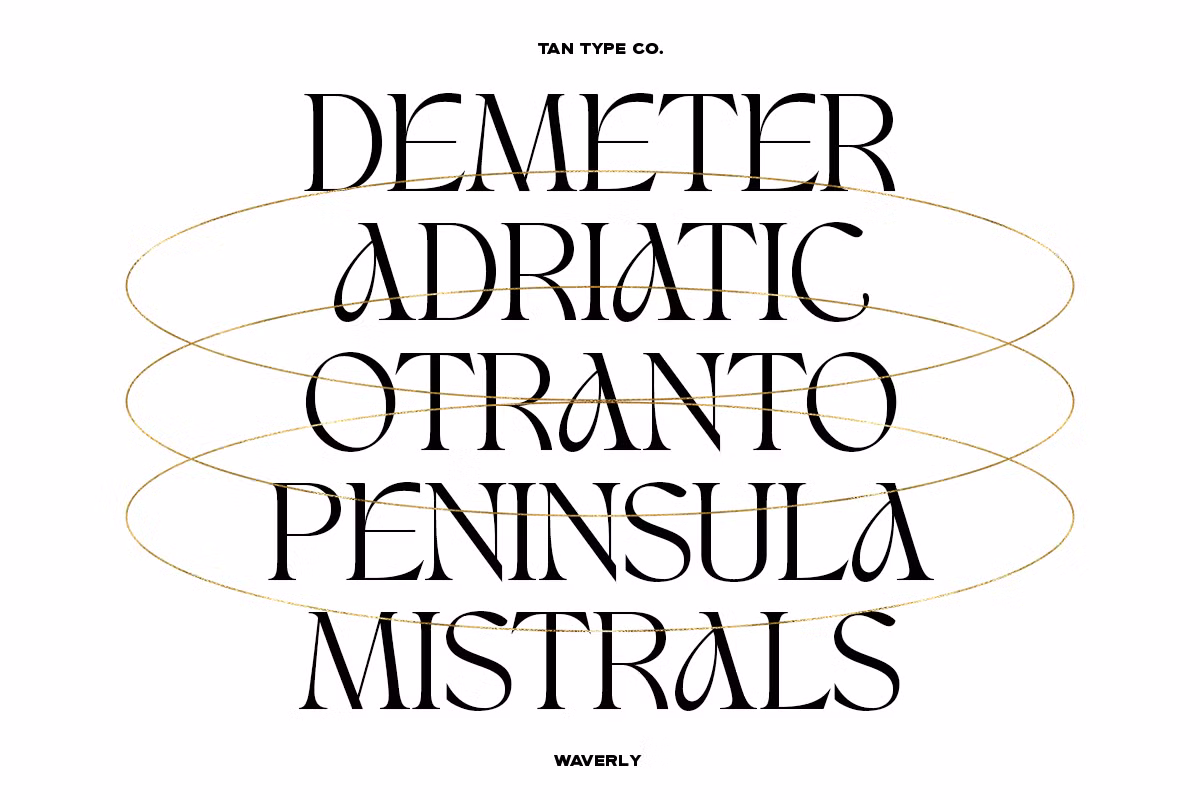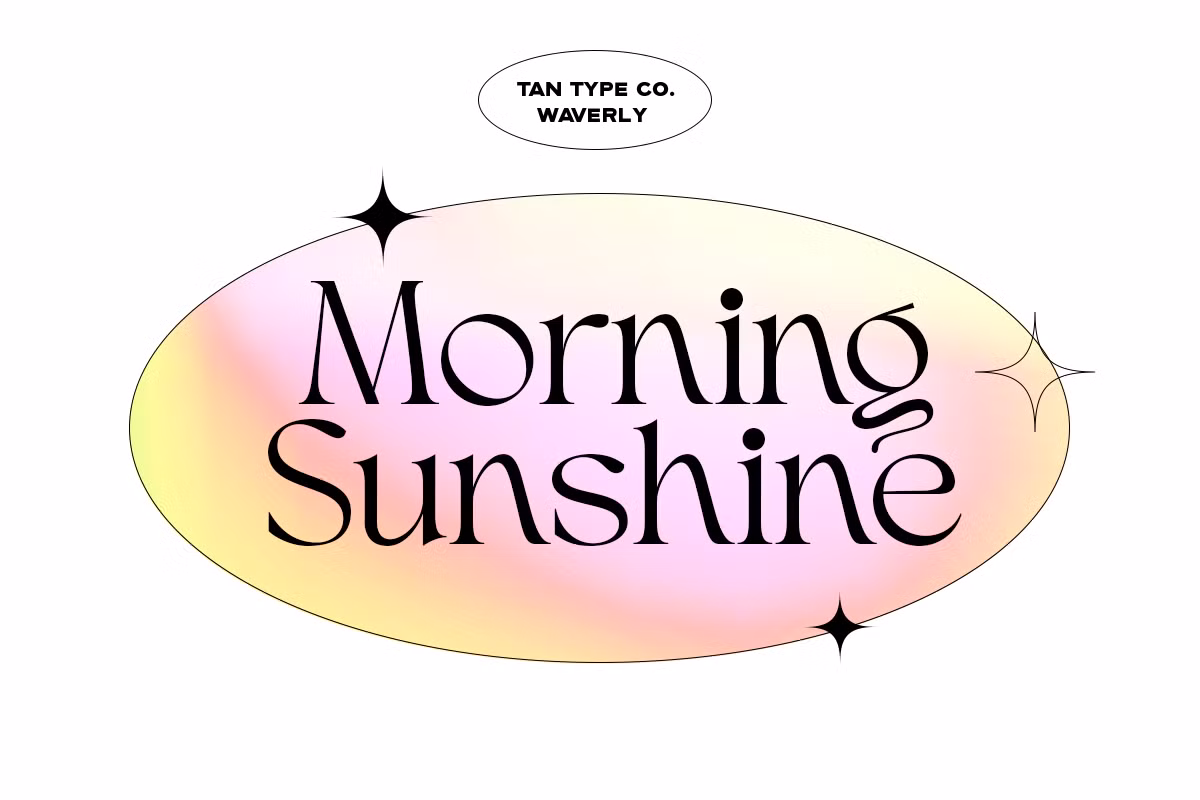
TAN – WAVERLY: Elegant Serif Typeface with Multilingual Support
Introducing TAN – WAVERLY. TAN. WAVERLY is the serif typeface that looks elegant and works well in situations. TAN. WAVERLY gives the designers ligatures and many glyphs to choose from. TAN. WAVERLY has the shapes and the small quirks that mix style with new use. I have used TAN. WAVERLY in my projects. I find TAN. WAVERLY helpful.
Design Style of TAN – WAVERLY
The design of TAN. WAVERLY shows a look that you see in serif fonts. Serif fonts have lines called serifs at the ends of the strokes. Those little lines help the reader follow the words. TAN. WAVERLY includes curves and sharp edges. Those smooth curves and sharp edges give a reading feel. Keep a nice look. TAN. WAVERLY feels natural.
The unique quirks of TAN. WAVERLY set TAN. WAVERLY apart from serif fonts. The ligatures in TAN. WAVERLY improve the flow of text. Give a reading experience for print media and digital displays. If you design a wedding invitation, a report or branding materials, the elegance of TAN. WAVERLY lifts the design higher.
Character Sets and Multilingual Support
A main feature of TAN. WAVERLY is the large character set. The large character set supports languages. When I use TAN. WAVERLY I find that TAN. WAVERLY is an option for projects or brands that want a global audience. The typeface includes a range of glyphs. The wide range of glyphs lets you communicate clearly in any language.
- Latin Script: Perfect for English and many other languages.
- Special Characters: Special Characters include the characters. Special Characters also include the symbols, for language needs.
- Ligatures: I think Ligatures improve the look of the text. I notice Ligatures join letters together in groups that make the writing look better. Ligatures feel natural.
When I use TAN. WAVERLY I feel confident that the design I create looks great. TAN. WAVERLY also helps the design I create reach audiences. That makes TAN. WAVERLY a versatile choice for any project.
Use Cases for TAN – WAVERLY
TAN. WAVERLY works for applications. The TAN. WAVERLY typeface is flexible. Here are some common use cases:
- Branding: TAN. WAVERLY looks clean. The clean look of TAN. WAVERLY makes TAN. WAVERLY a good choice for logos, business cards, and brand identities.
- Print Media: I have found Print Media to be ideal for the magazines, the brochures and other printed materials. I also see that TAN. WAVERLY legibility makes the content easy to read.
- Digital Design: I have found Digital Design works well for the websites and for the media graphics. I have also found that Digital Design may not fully support OpenType features in all the design platforms.
- Invitations and Stationery: The nice shapes of Invitations and Stationery make Invitations and Stationery a popular choice for wedding invitations, greeting cards and other personal stationery. People often use Invitations and Stationery.
Pairing Suggestions for TAN – WAVERLY
When I use TAN. WAVERLY I pair TAN. WAVERLY with a typeface that fits the design. That gives the design impact. Here are a few ideas:
- Sans-Serif Companion: I pair TAN. WAVERLY with a sans‑serif font, like Montserrat or Lato. TAN. WAVERLY and Montserrat or Lato together give a look that mixes elegance and simplicity.
- Display Fonts: I use the display font for headings. I pair the display font with TAN. WAVERLY in body text. The contrast between the display font and TAN. WAVERLY creates hierarchies in my designs.
- Monospace Pairing: can add a feel to the design. I like Monospace Pairing with a monospace font such as Courier New. Monospace Pairing works well in tech-related projects.
I find that the key to good typeface pairing is contrast and harmony. I use TAN. WAVERLY as a base. I add fonts to TAN. WAVERLY for looks and interest.
TAN. WAVERLY is a serif typeface. TAN. WAVERLY offers ligatures and glyphs so the letters can join in ways. TAN. WAVERLY supports languages so the typeface works for scripts. TAN. WAVERLY can be used for kinds of projects. Whether you are a designer or you are working on a project, TAN. WAVERLY can help you add a nice look. I have used TAN. WAVERLY on a flyer. The result felt clean and clear. Use TAN. WAVERLY to make your typography look better today.